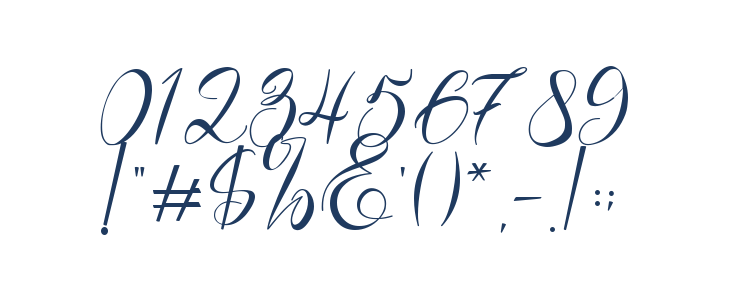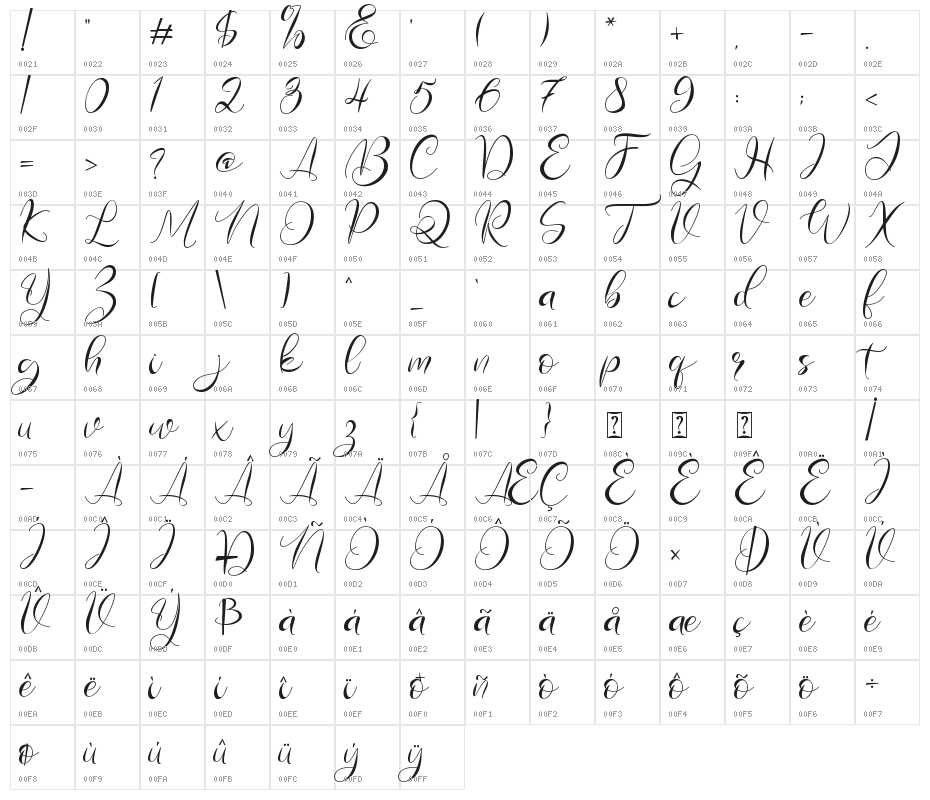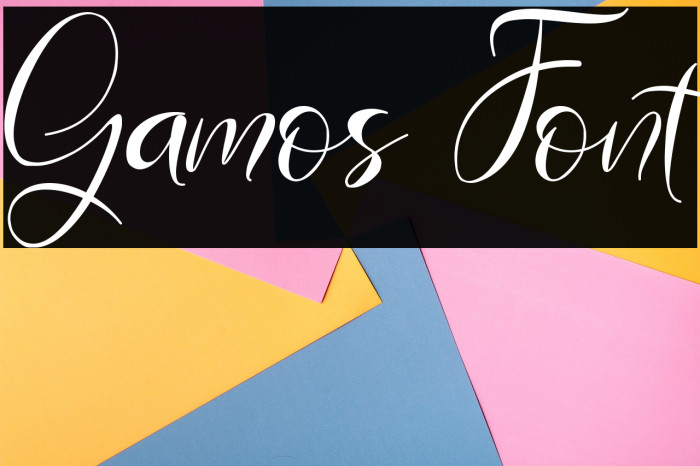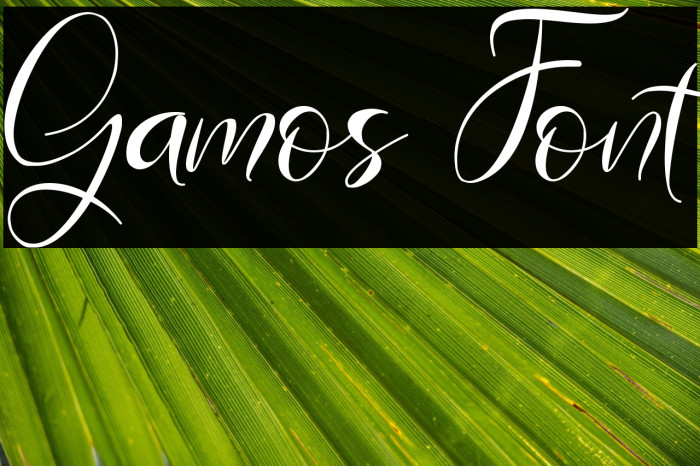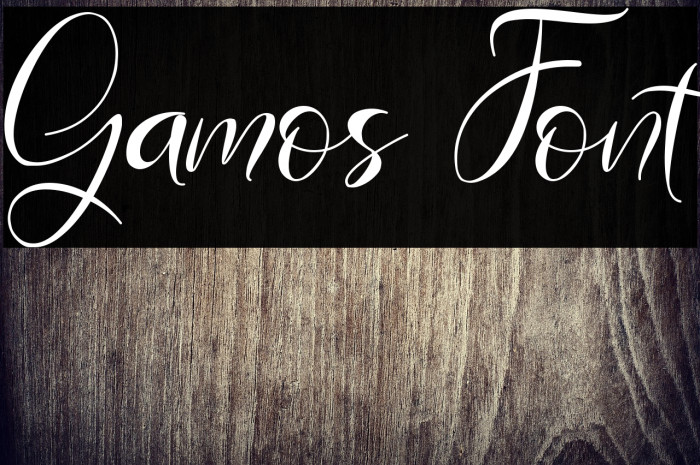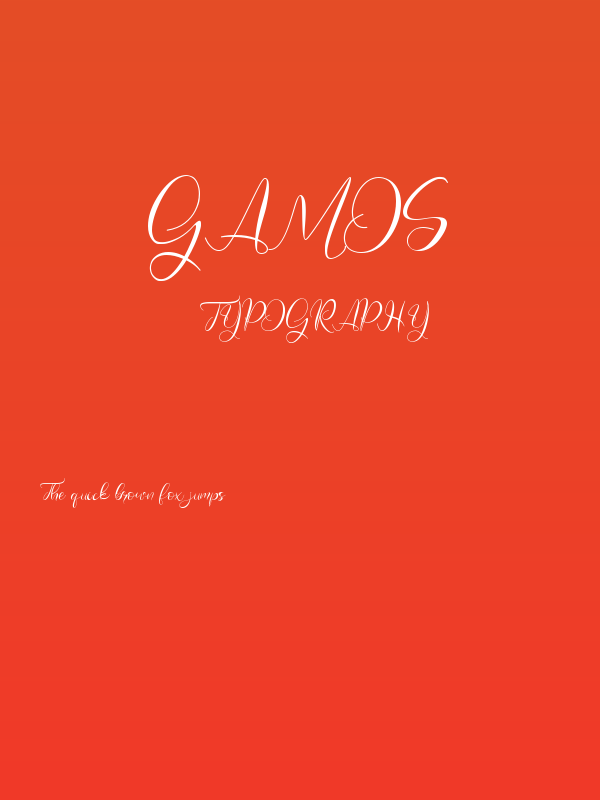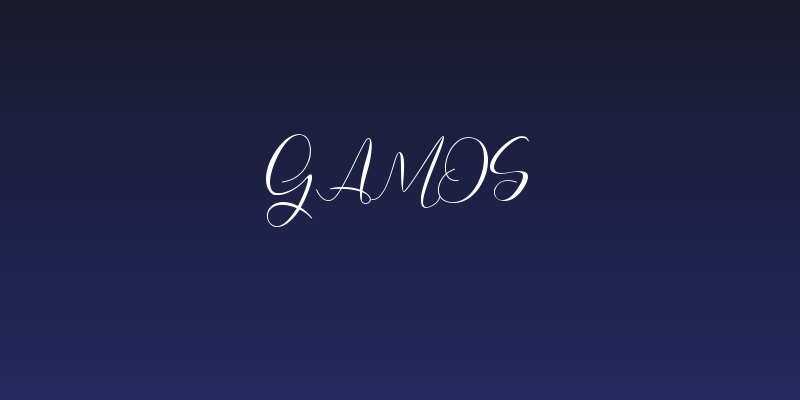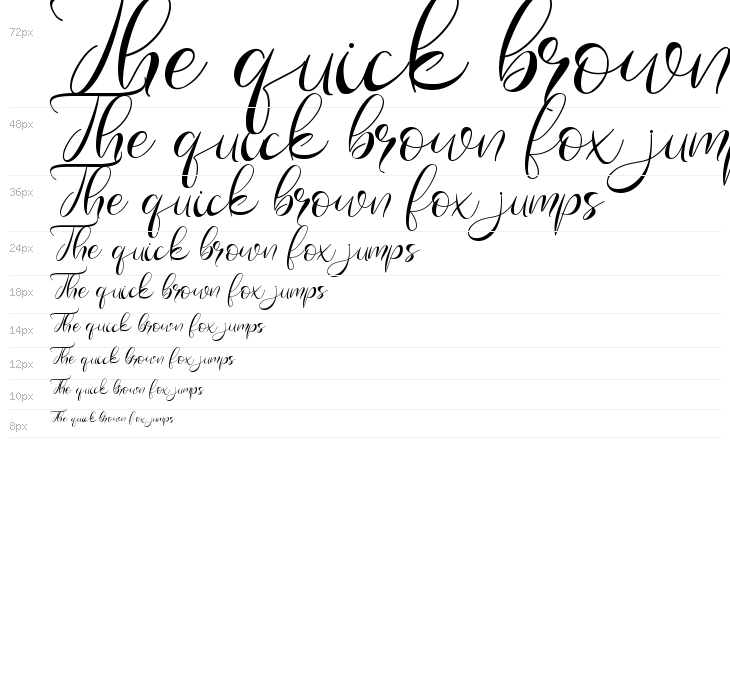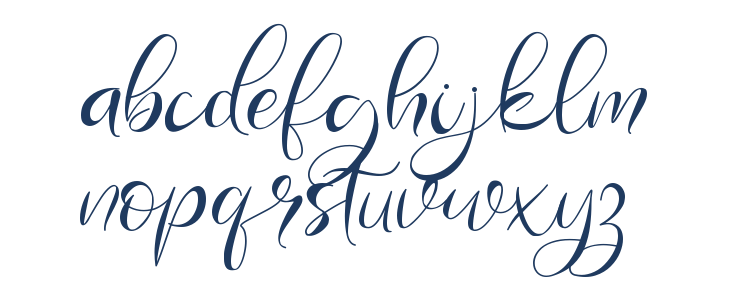
Gamos Font
Gamos Description
This elegant script font features flowing, interconnected letters with a calligraphic style. The uppercase letters are ornate, with sweeping curves and flourishes that give a sense of movement and grace. The lowercase letters maintain a consistent style, with loops and tails that enhance the fluidity of the text. Numbers and special characters are designed to match the overall aesthetic, providing a cohesive look. The font's delicate strokes and high contrast between thick and thin lines contribute to its sophisticated appearance, making it ideal for formal and decorative uses.
| Overall Style | Elegant |
| Use Case | Headlines, Invitations, Branding |
| Proposed Projects | Ideal for wedding invitations, elegant branding, personal stationery, and decorative headlines. |